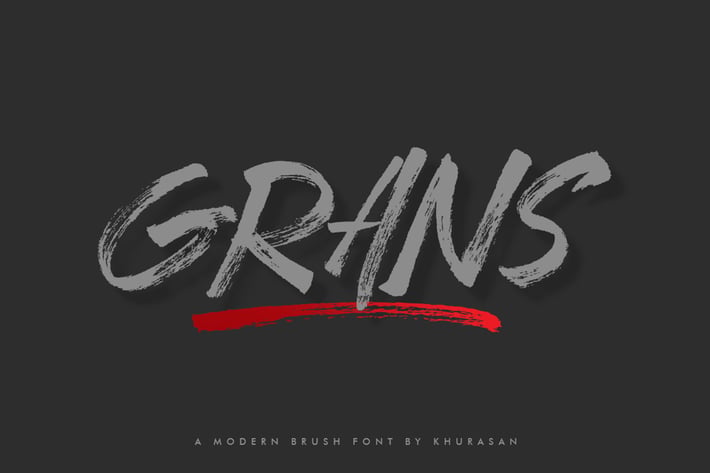
Grans Brush Font
khurasan
The Grans is a fresh brush font, elegant and modern feel character set. The Grans font as well as multi-lingual support, swashes, numerals, & punctuation.